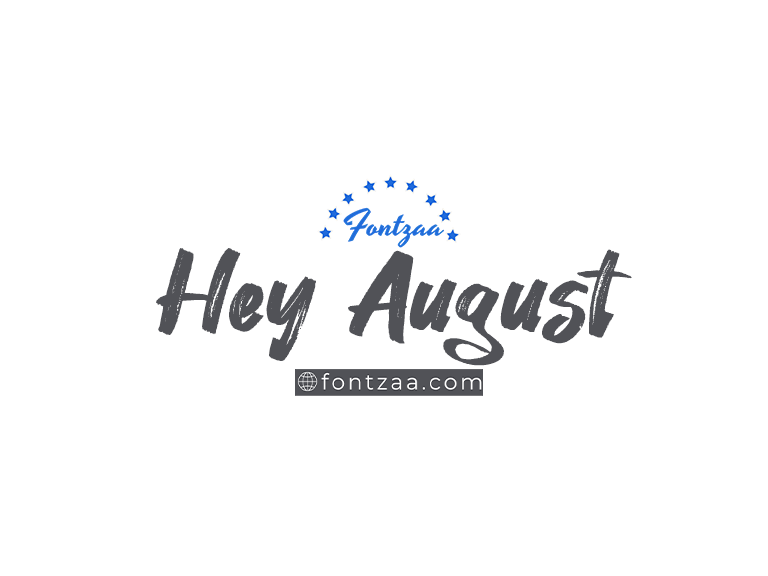
Hey August Font is another sweet and playful typeface meant to represent a bit of fun and warmth in each project. Rounded, friendly letter forms give this font a unassuming look that is perfect for invites, greeting cards, and just about anything else whimsical you can think of branding. The approachable and good-natured nature of the font will surely make it your favorite in many design projects.
Hey, August Font features a fun, rounded look that stands out. It makes this particular font pretty warm and amicable, much because of the soft, rounded letterforms and some other informal design elements. Therefore, it can be best for those kinds of designs that need to communicate a light-hearted and inviting aura. Above that, each letter is designed very well, maintaining a specific appearance that doesn’t let it go off the track of looking consistent, visibly interesting, and full of character.
While being relatively informal in its design, the Hey August Font is still legible. Text will appear transparent to read in any kind of, even the most fun, context because the shapes of each letter are well distinguished from one another. Used either for large headlines or small text, the Hey August Font will balance visual appeal and legibility. It should find application in many graphic designs.
For additional strength in versatility, Hey August Font supports a vast range of characters and symbols. It’s thus capable of use with any project and language. Equally, it is compatible with most design software and makes the work of designers easy within a creative workflow.
Apart from the good visual impression, the Hey August Font is also user-friendly and practical. It easily integrates into different design platforms, making it a great tool for all kinds of designers regarding bringing some fun and warm feelings toward their work. As can be seen in this blend of an engaging style, legibility, and versatility, Hey August Font is placed among the great fonts for projects that bring a heartwarming expression with a friendly and joyful undertone.